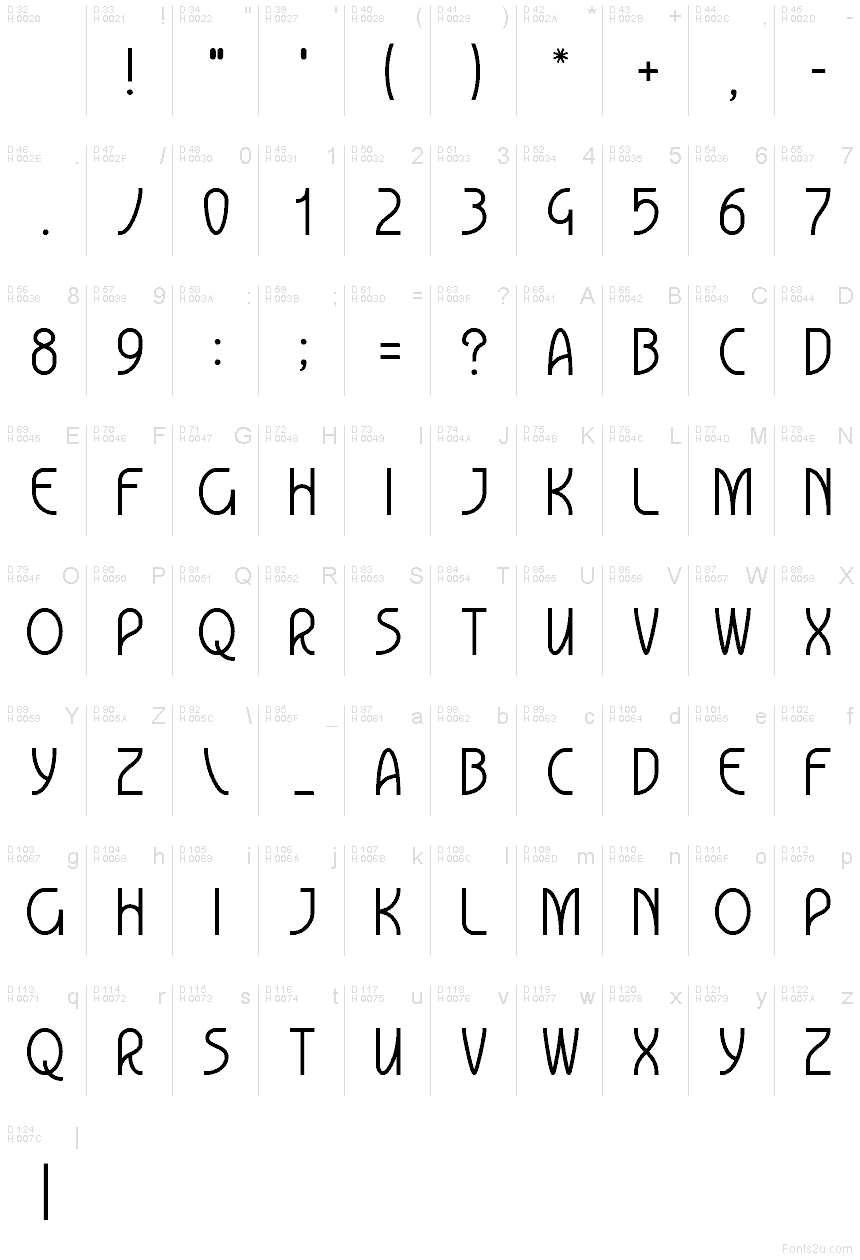
Lumierepolis font by GGBotNet is a free retro display typeface that feels like a city of lights flickering to life. Its tall, tubular letters trace smooth, continuous strokes, echoing vintage marquee signs and glowing cinema fronts. Rounded corners soften the geometry, giving each word a sleek, polished glow that feels both nostalgic and distinctly urban.
Using Lumierepolis, you can instantly give posters, event flyers, film titles, music covers, bar or club branding, and restaurant menus a stylish nightlife aura. The generous spacing keeps even all-caps headlines readable at large sizes, where the curves really shine. This free font pairs nicely with a simple geometric sans for body text-set Lumierepolis big and bright, then let the secondary type quietly handle the details.